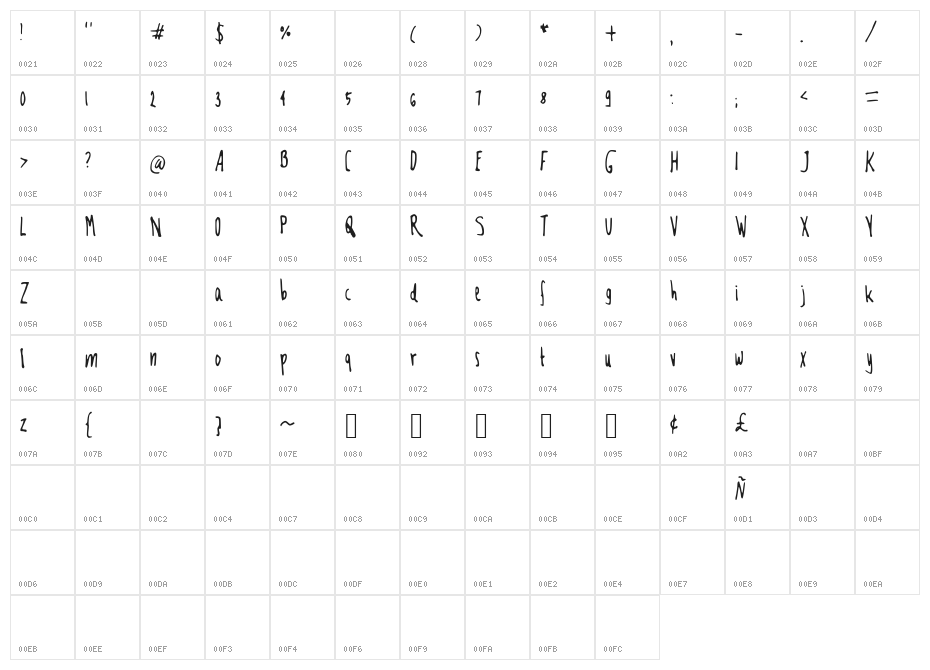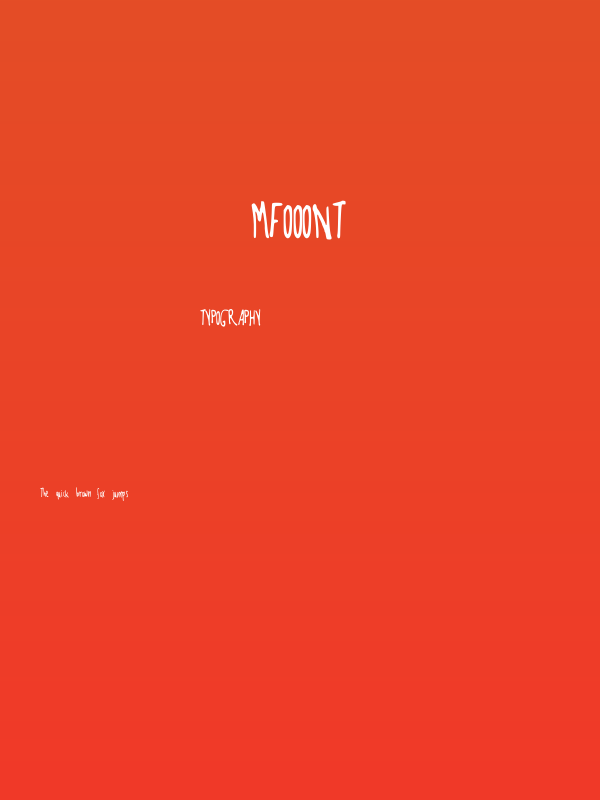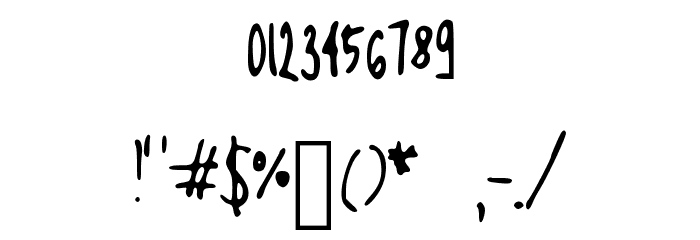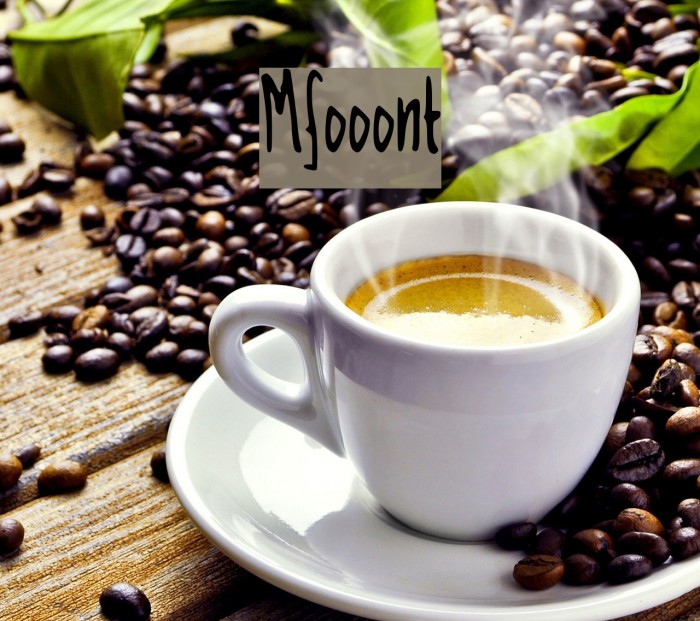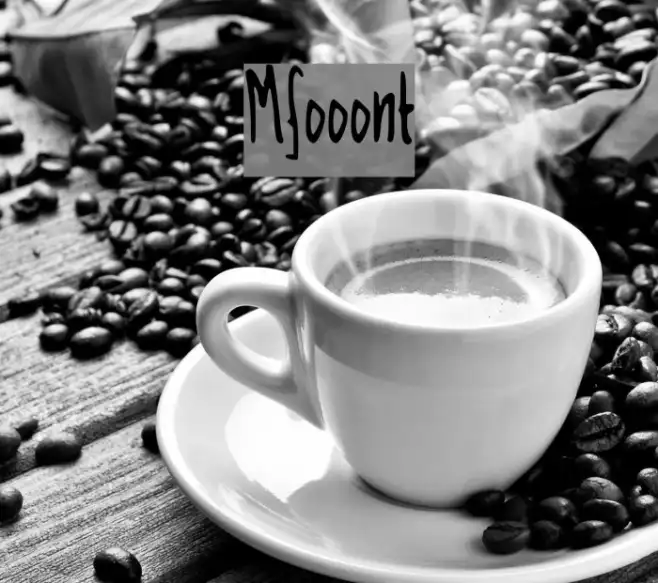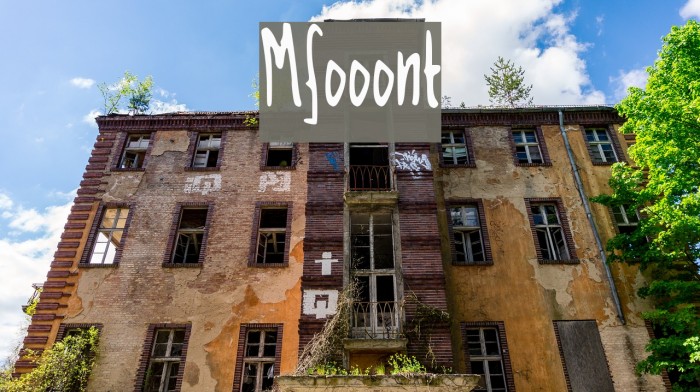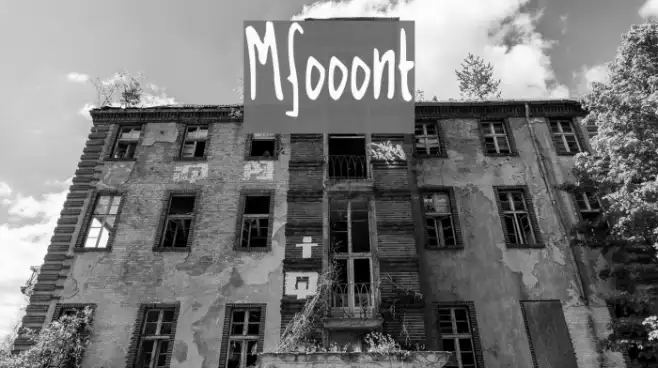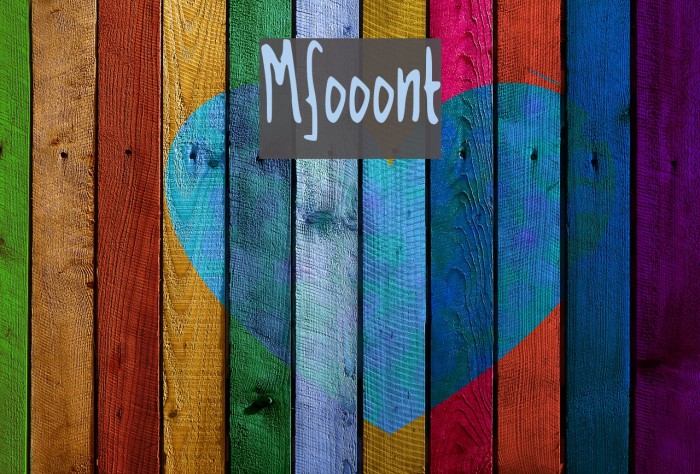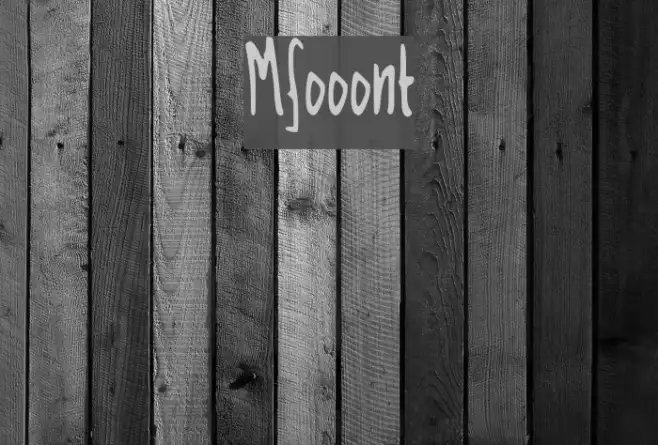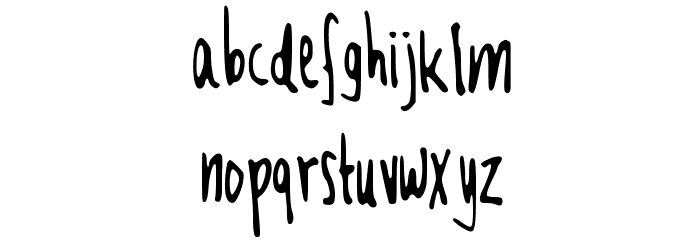
Mfooont Font
Mfooont Description
This font features a playful and informal style with a handwritten appearance. The letters are slightly irregular, giving it a casual and friendly feel. The uppercase and lowercase letters maintain a consistent flow, while the numbers and special characters complement the overall aesthetic. The strokes are varied in thickness, adding a dynamic and lively touch. This font is ideal for projects that require a personal and approachable look, such as invitations, greeting cards, or creative branding.
| Proposed Projects | Ideal for invitations, greeting cards, creative branding, and informal communication. |